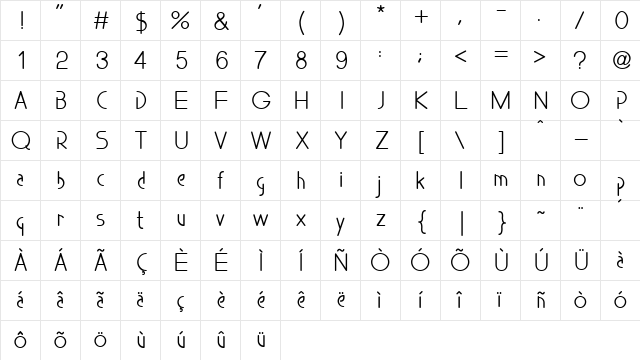
Something Regular
| Foundry | di Marques |
| Designer | di Marques |
Design Context for Something Typeface
Something offers clean, dependable letterforms without strong stylistic allegiance, making it a practical choice for designers who need flexibility. The delicate stroke weight brings airiness and refinement to layouts.